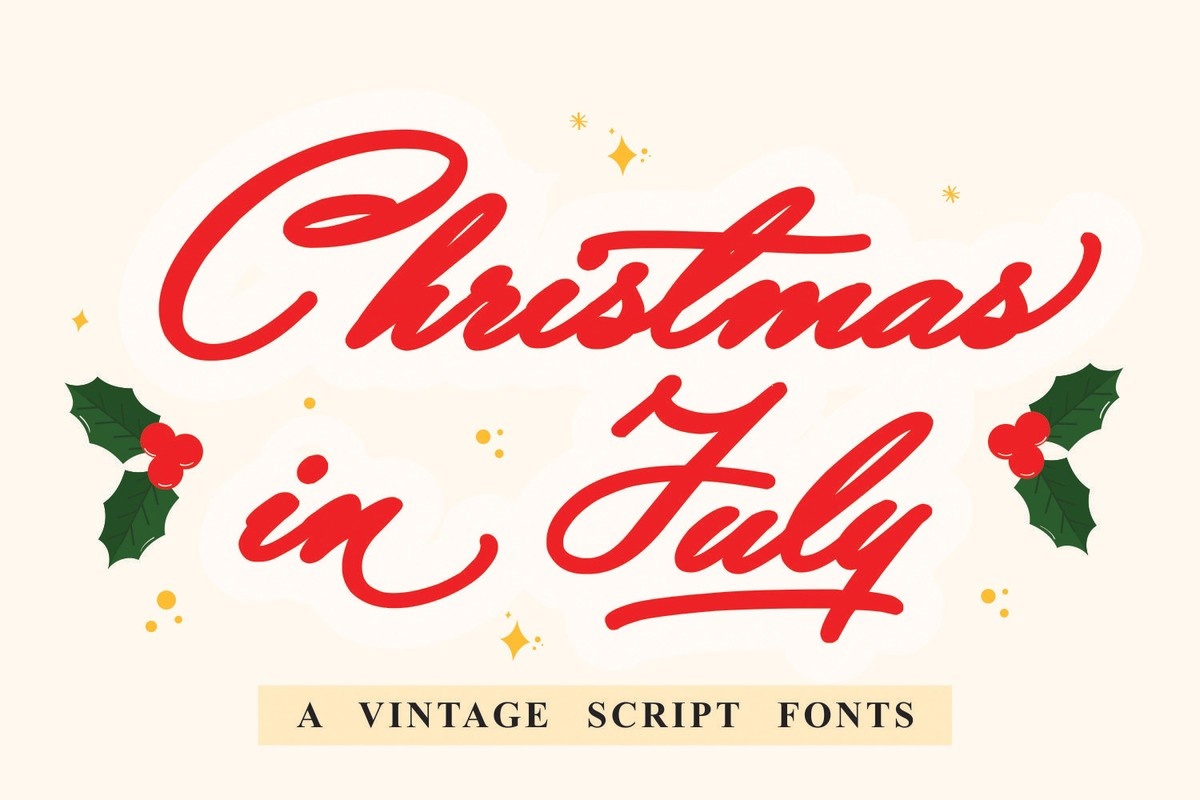
Christmas In July Font
A good typeface communicates tone before a single word is read. Christmas In July achieves this through distinctive character without sacrificing readability. The typeface brings a versatile sensibility to a broad range of creative disciplines, with refined proportions and careful stroke modulation that holds up whether the work is print-first or screen-first.
In practice, Christmas In July proves particularly effective for web design, brand identity systems, editorial layouts, packaging design, advertising campaigns. Designers reaching for it find that the type decisions feel resolved rather than laboured — a useful quality when client timelines are tight.
The range of applications extends to poster creation, environmental graphics, logo design, annual reports. That breadth is deliberate: the proportions and spacing were stress-tested across a wide range of mock briefs before the typeface was finalised.
The proportions balance x-height, cap height, and ascender length to produce a face that reads confidently at body copy sizes without losing presence at display scale. Sidebearings were derived from visual rhythm testing rather than mathematical calculation alone.
Christmas In July sits comfortably alongside both classic and contemporary typefaces in multi-font hierarchies. It takes direction rather than competing for attention — a quality that experienced designers know is harder to find than it appears.
Freelance designers across print and digital disciplines find Christmas In July a reliable choice for projects that demand both personality and restraint. The design avoids the self-conscious quirkiness that dates quickly, settling instead for considered distinctiveness that holds up over time.